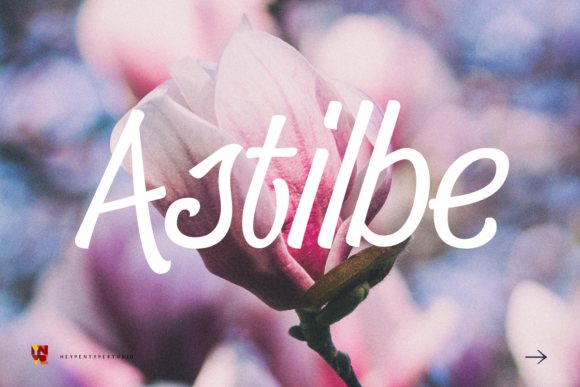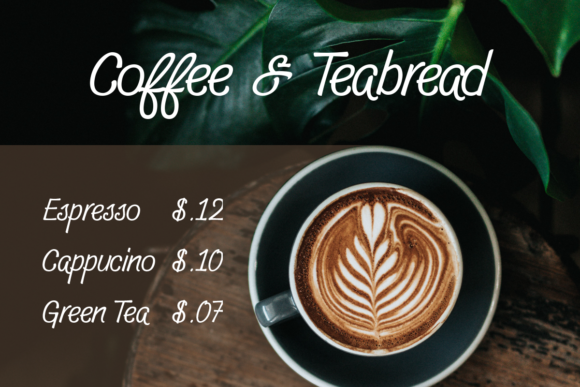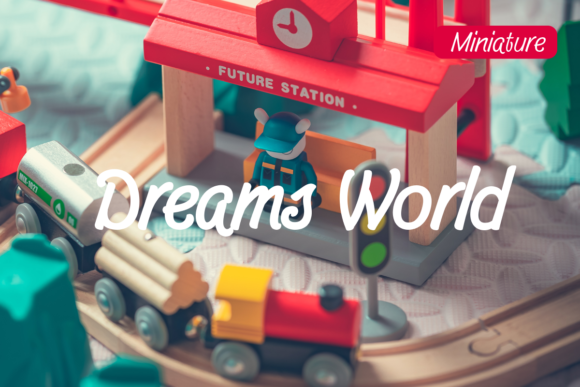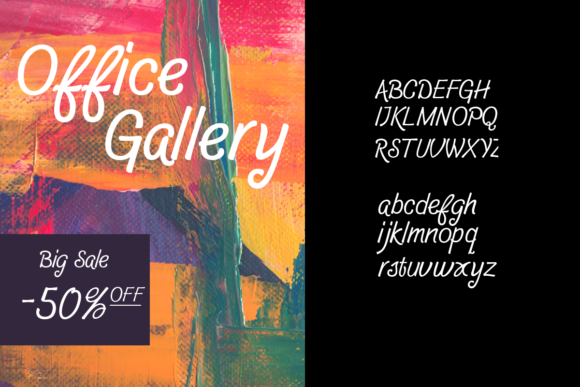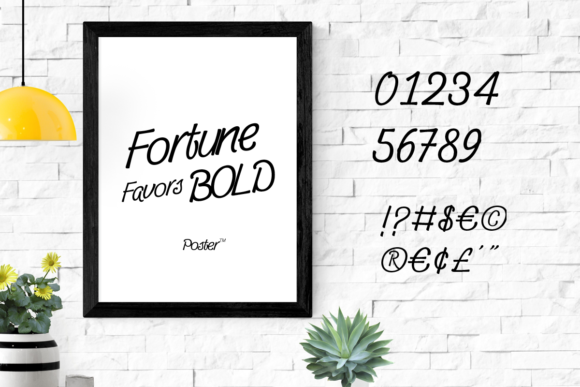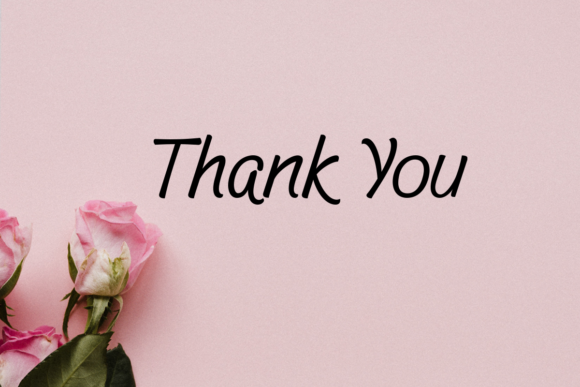
Astilbe Font
About Astilbe Font
Astilbe is a well balanced, lovely handwritten font. Its casual charm makes it appear wonderfully down-to-earth, readable and, ultimately, incredibly versatile. It will look outstanding in any context, whether it’s being used on busy backgrounds or as a standalone headline!